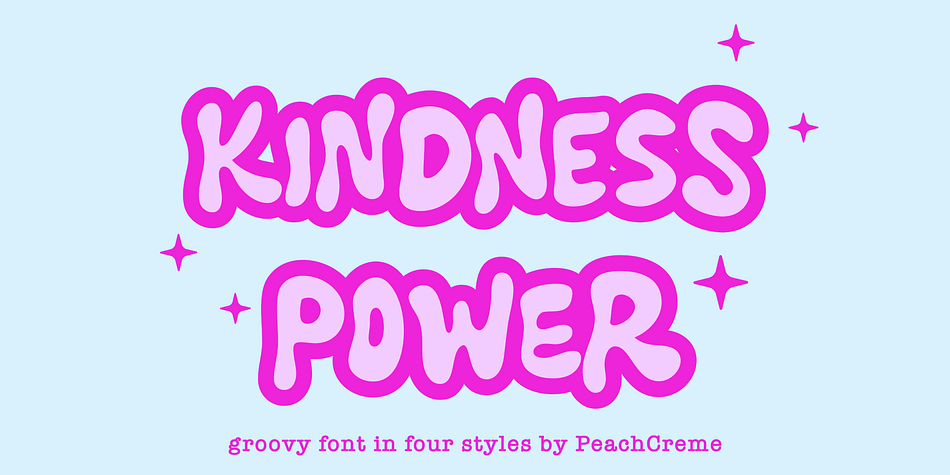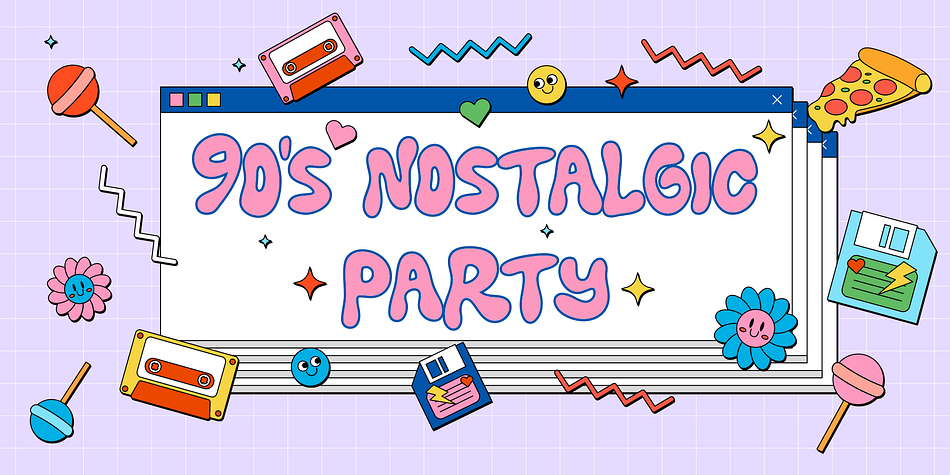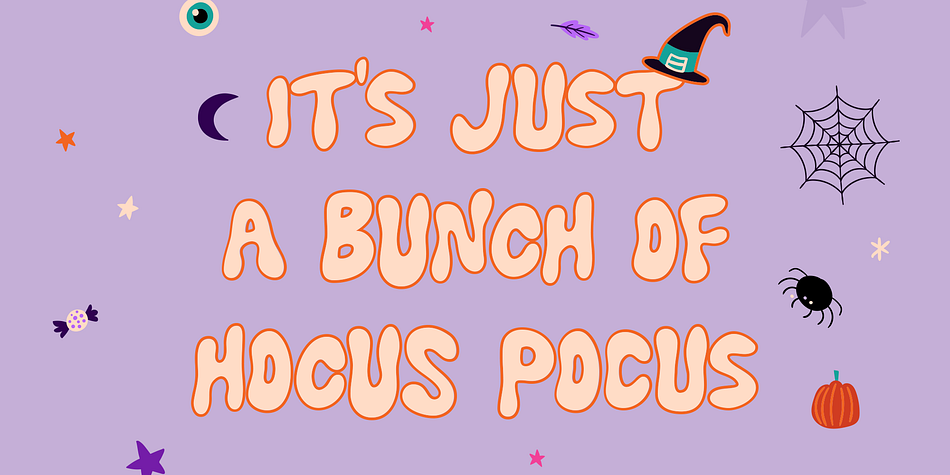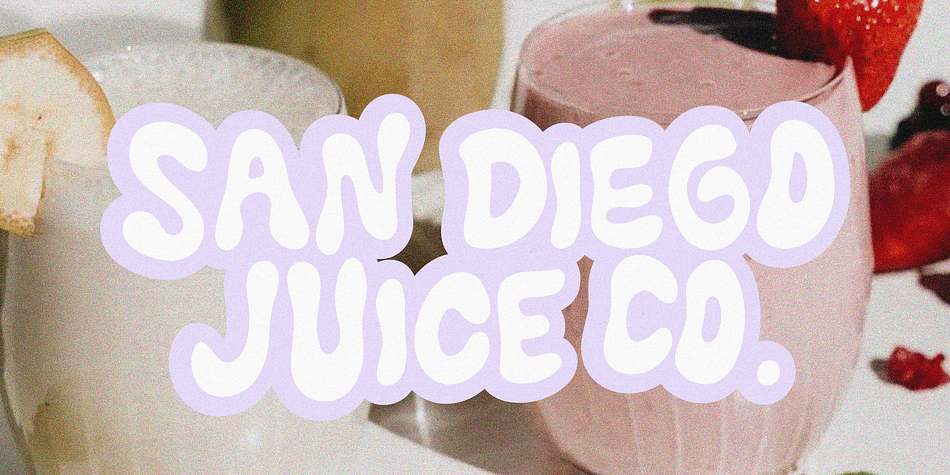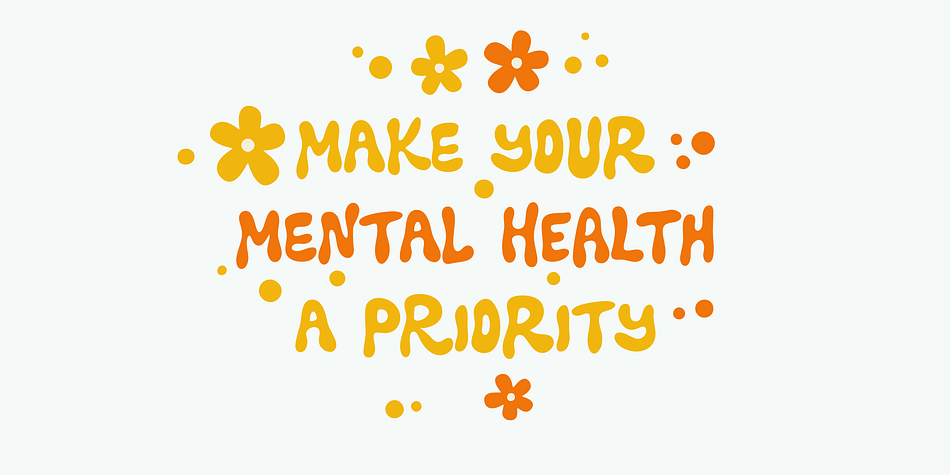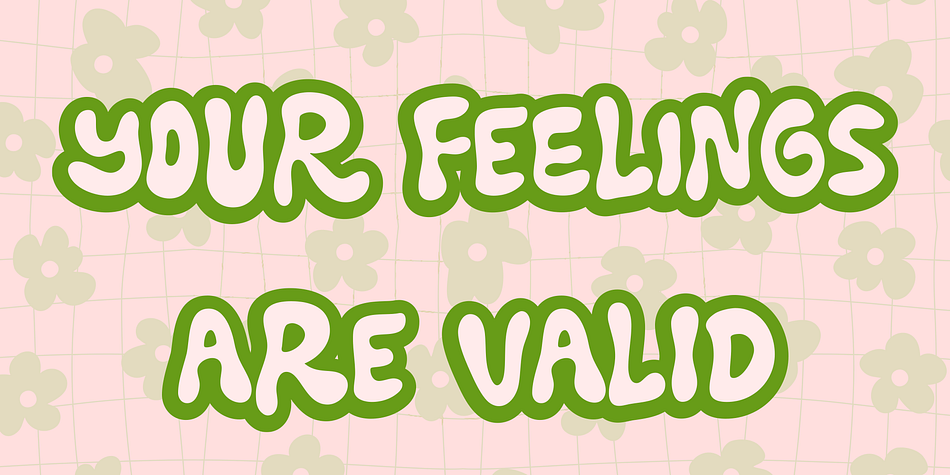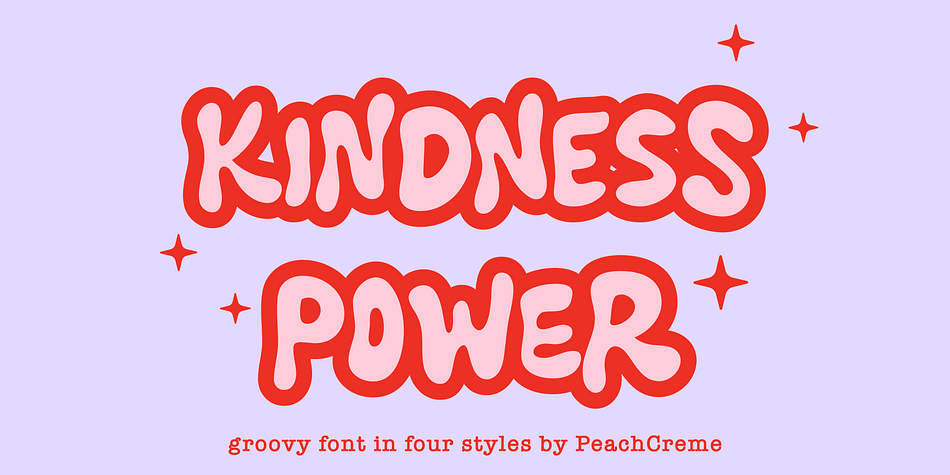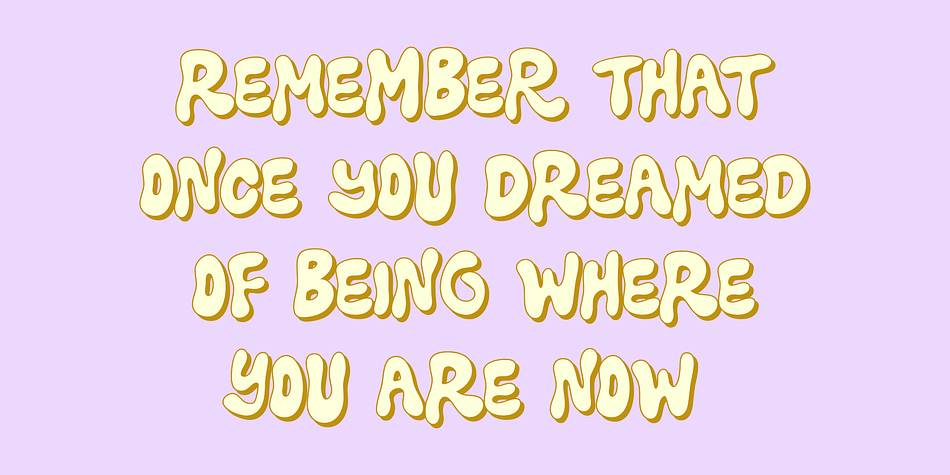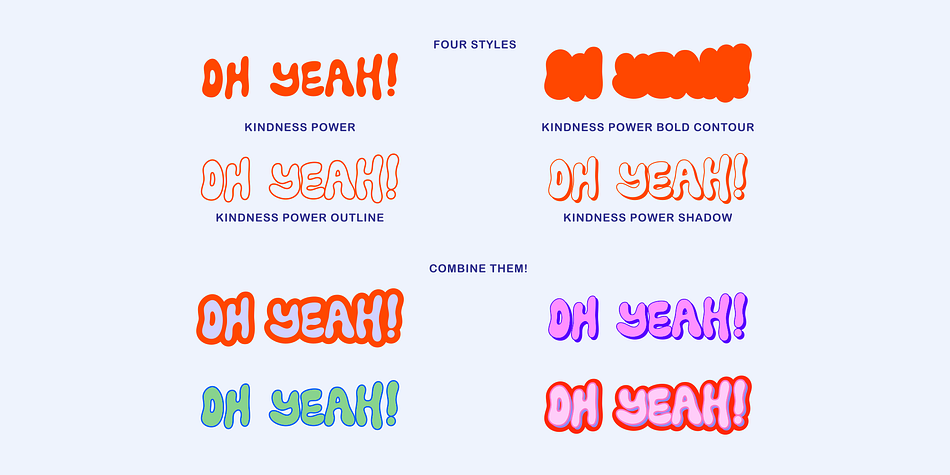
Kindness Power
Kindness Power is a retro and sans serif font family. This typeface has four styles and was published by PeachCréme.
Kindness Power font set is a psychedelic and funky blend with a bubbly touch. This set is very well suited for use in logos, social media quotations, t-shirt designs, and many other scenarios.
Kindness Power, which is available in four variations, undoubtedly ties your design together and provides it a laid-back feel.